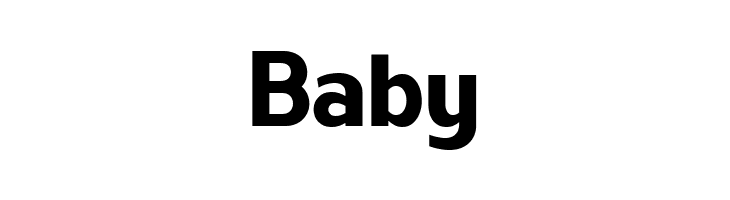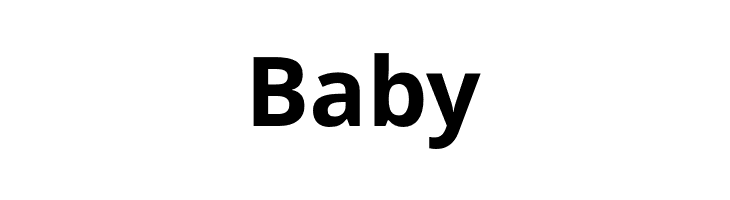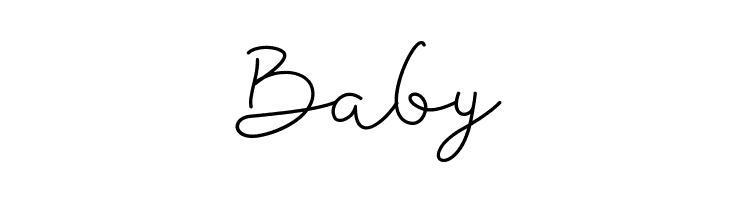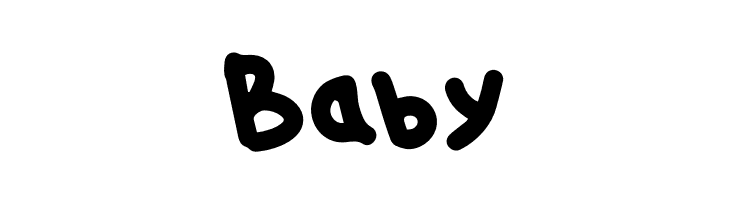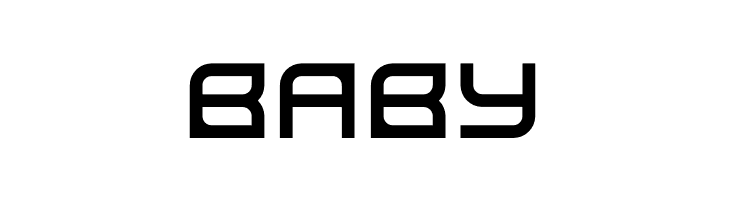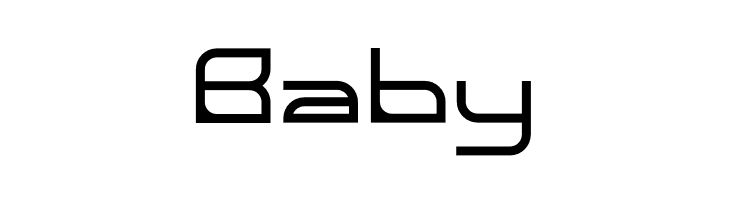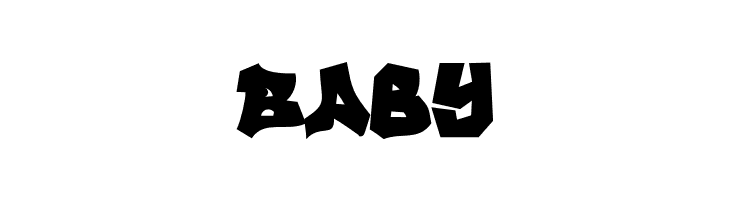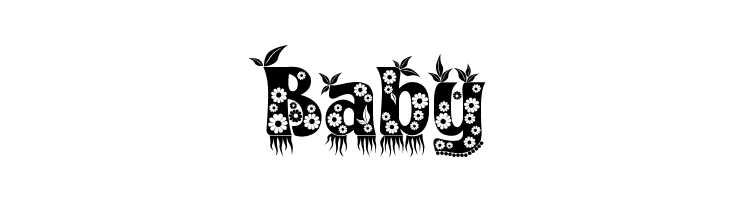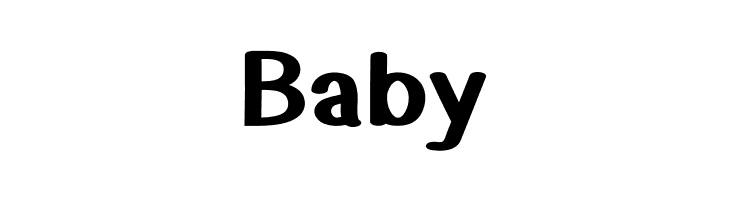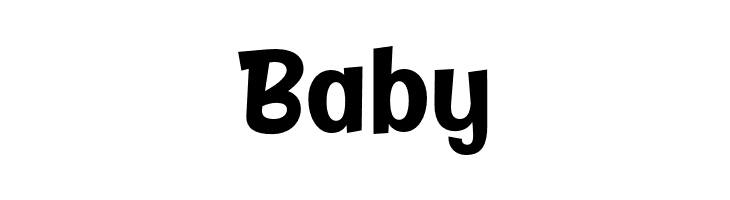
A bold, modern sans-serif font with a clean and slightly condensed style.
A charming and elegant handwritten script font with flowing, cursive letters.
A clean, modern sans-serif font with uniform strokes and balanced spacing.
A playful, bold font with rounded edges and a dynamic, slanted style.
A bold, playful handwritten font with a casual and friendly vibe.
A playful, rounded sans-serif font with a clean and modern look.
A playful, bold italic sans-serif font with smooth, rounded characters.
A playful, handwritten font with a casual and friendly vibe.
A playful, bold font with rounded edges and a friendly, approachable style.
A playful, hand-drawn font with a bold, whimsical style.
A bold, italicized, and playful font with a handwritten feel, perfect for children's materials.
A playful, bold font with rounded, hand-drawn style letters.
A playful, bold font with a hand-drawn, youthful style.
A modern, geometric font with consistent stroke widths and a clean, technical appearance.
A geometric, modern font with a digital aesthetic and uniform stroke widths.
A bold, playful handwritten font with rounded, consistent strokes.
A bold, playful font with whimsical, rounded letterforms.
A bold, italic script font with a playful and adventurous style.
A bold, angular font with a dynamic and geometric style.
A bold, classic serif typeface with strong, authoritative characters.
A bold, italicized, and condensed font with high contrast, ideal for impactful headlines.
A bold serif font with strong strokes and pronounced serifs, ideal for impactful designs.
A bold, italicized font with strong strokes and a dynamic slant.
A bold serif font with strong strokes and pronounced serifs, ideal for impactful designs.
A bold, italic serif font with a modern yet classic appeal.
A bold slab serif font with strong, well-defined characters.
A bold, italic serif font with strong strokes and a dynamic slant.
A decorative font with bold, floral-themed characters and playful embellishments.